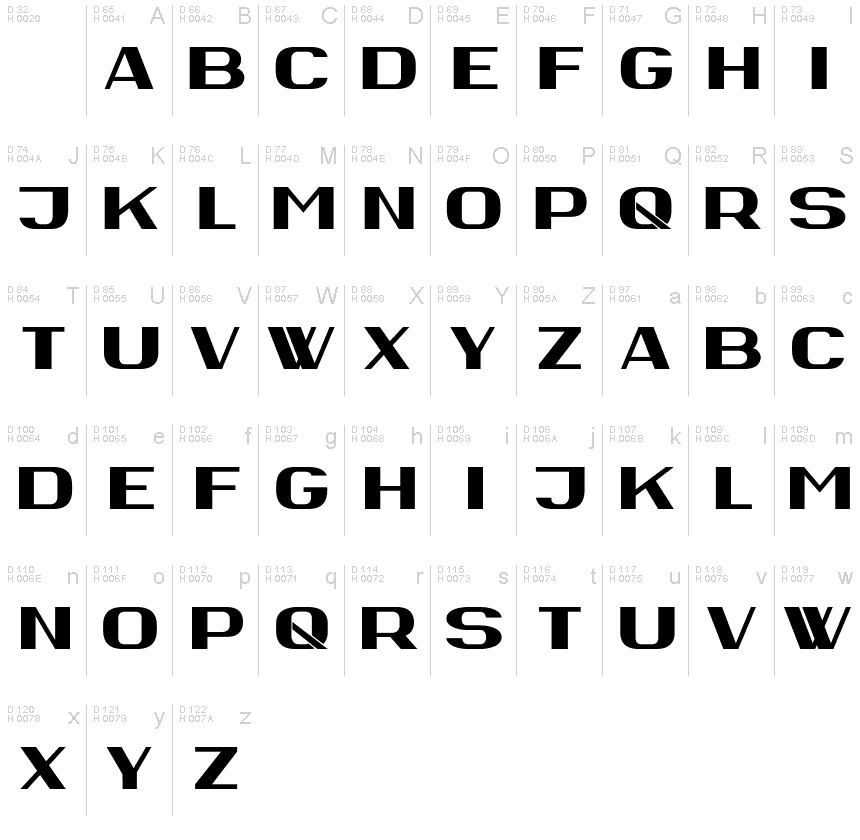
Bucato Regular
Bucato, an extraordinary bold sans serif font designed by Vladimir Nikolic, exudes confidence and modernity.
With its expanded width, this typeface is perfect for captivating headlines and eye-catching titles. Its strong presence and sleek design make it suitable for a wide range of projects. From magazine covers to website banners, Bucato adds a touch of sophistication and professionalism. Make a statement with this versatile font in your logo designs or marketing materials.
Grab attention with Bucato and let your creativity shine through its boldness and expanded form.